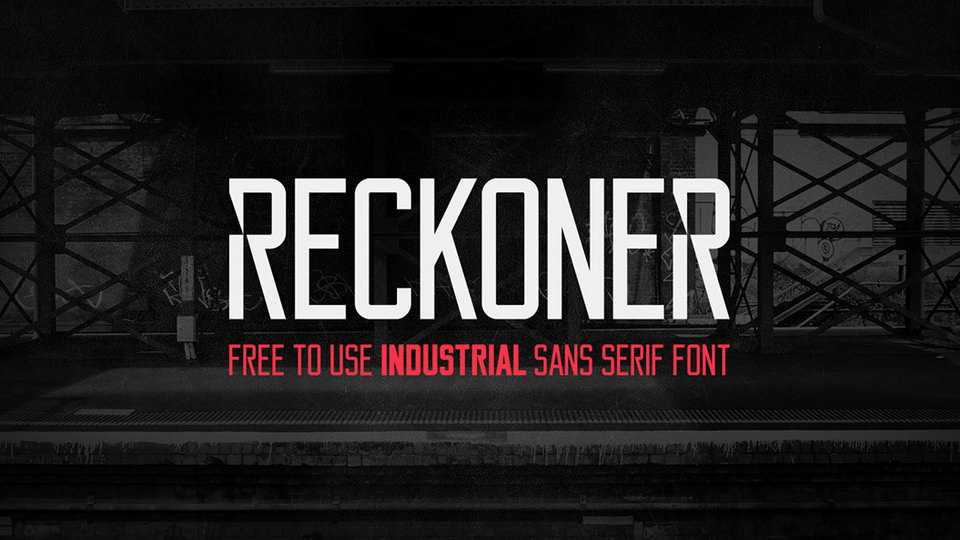
Recorner Font Family › Fontesk – Download Grátis
Download Recorner font family, is a unique display typeface, drawing inspiration from popular industrial sans serif typefaces. Recorner also has a modern twist whilst keeping the fundamentals of a traditional font.
Designer: Alex Dale